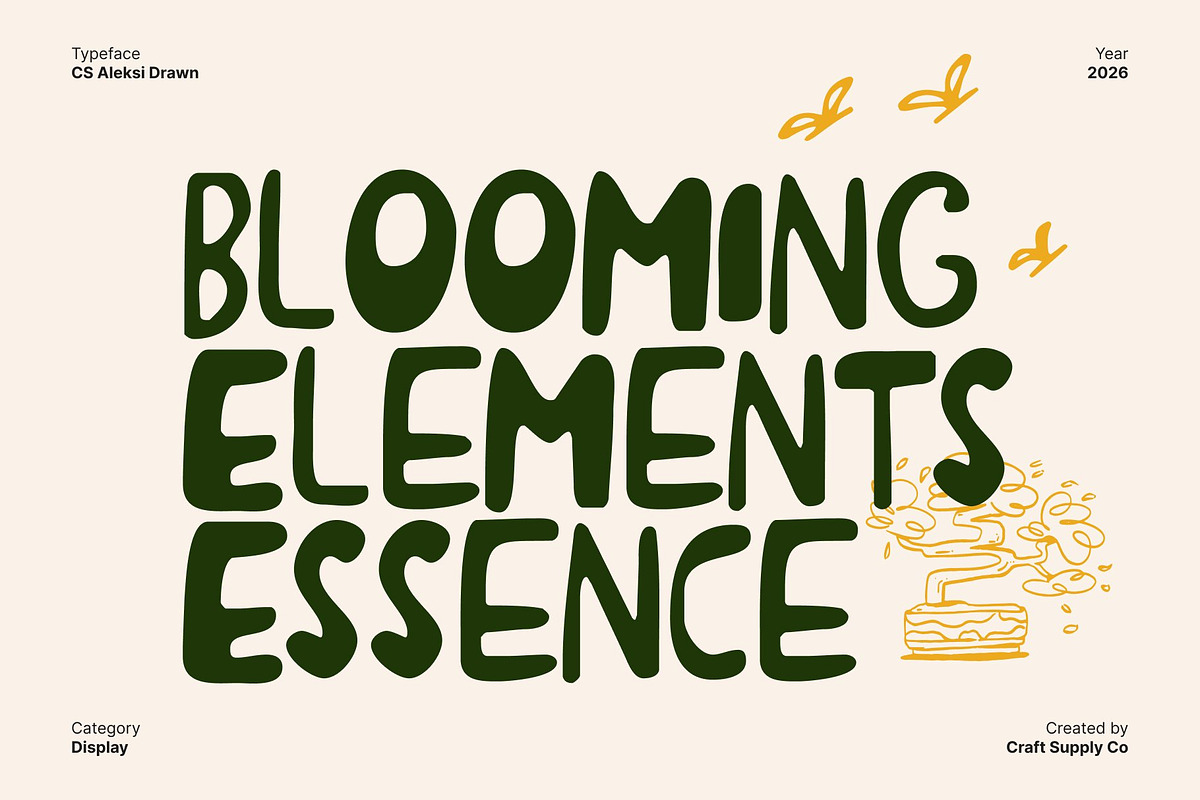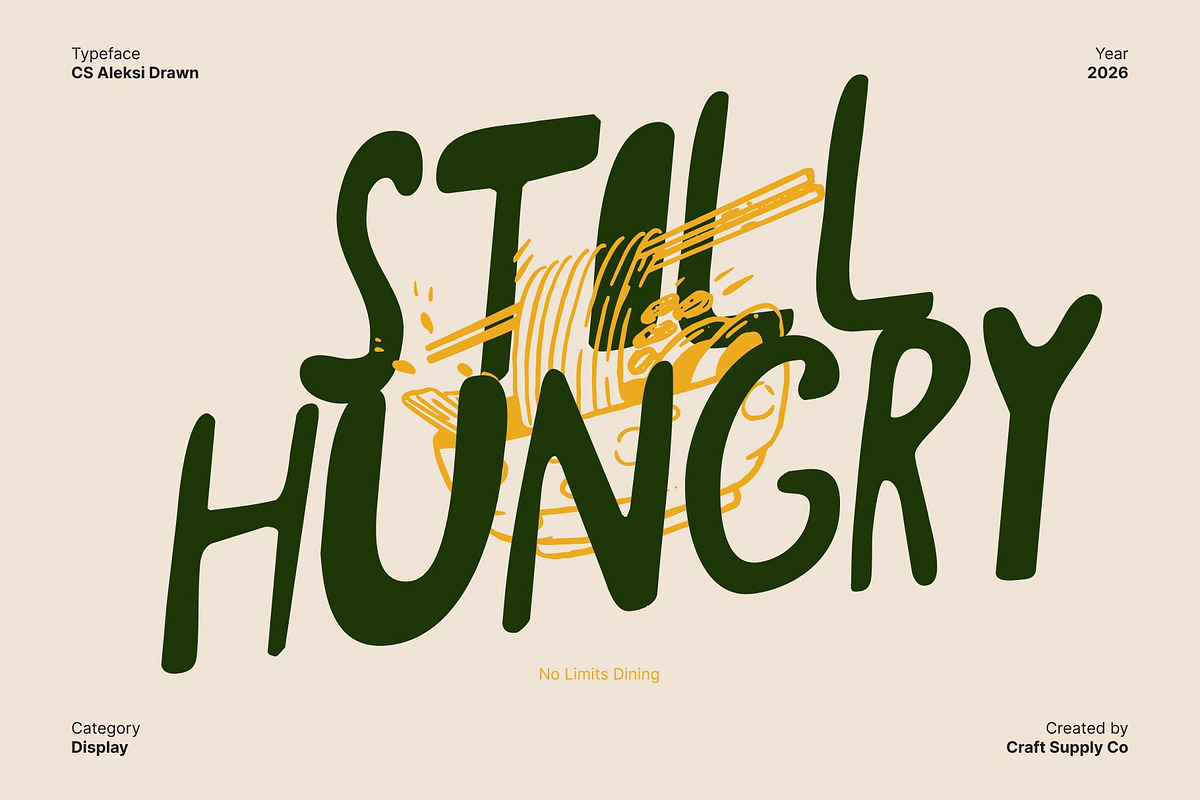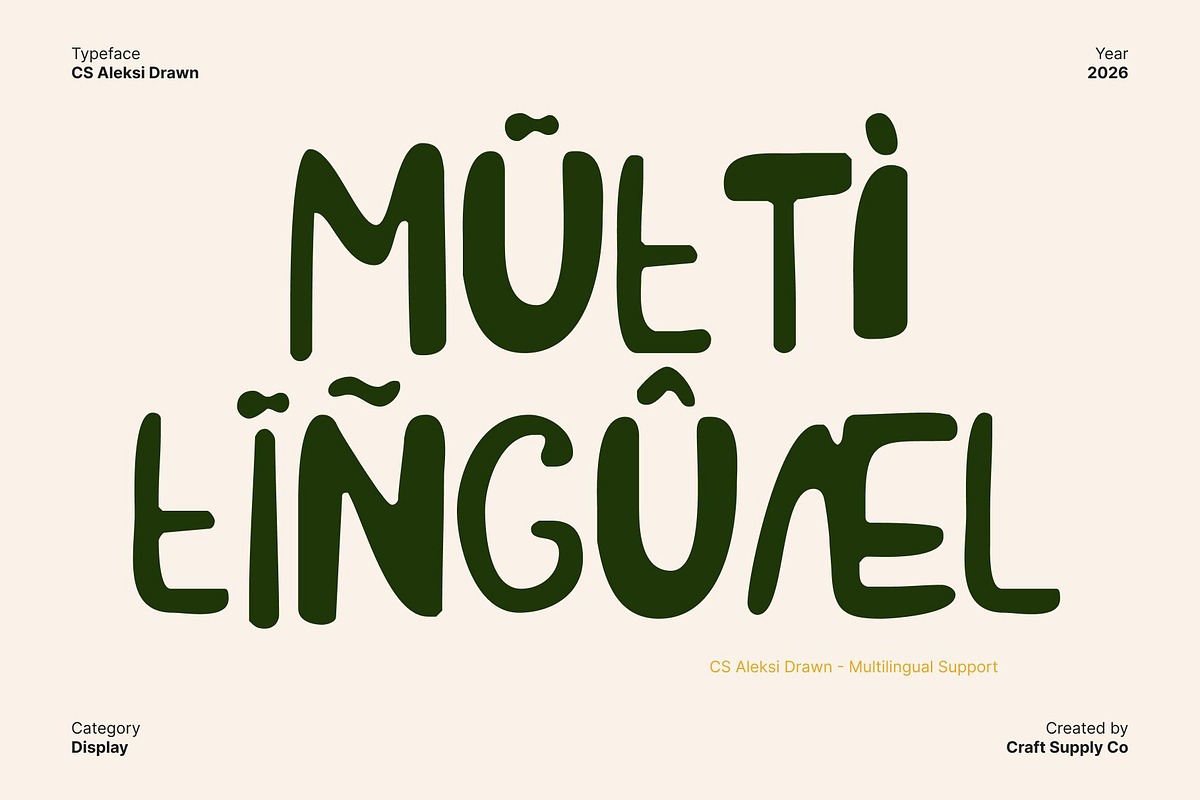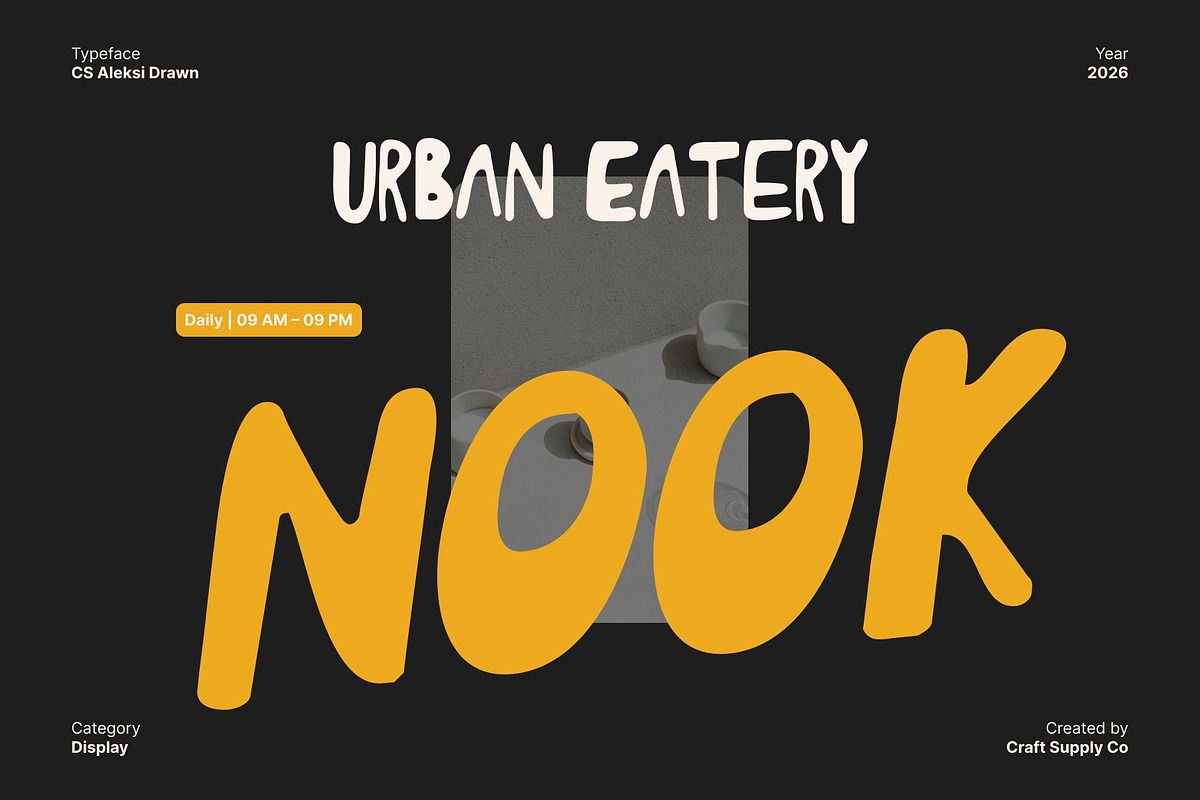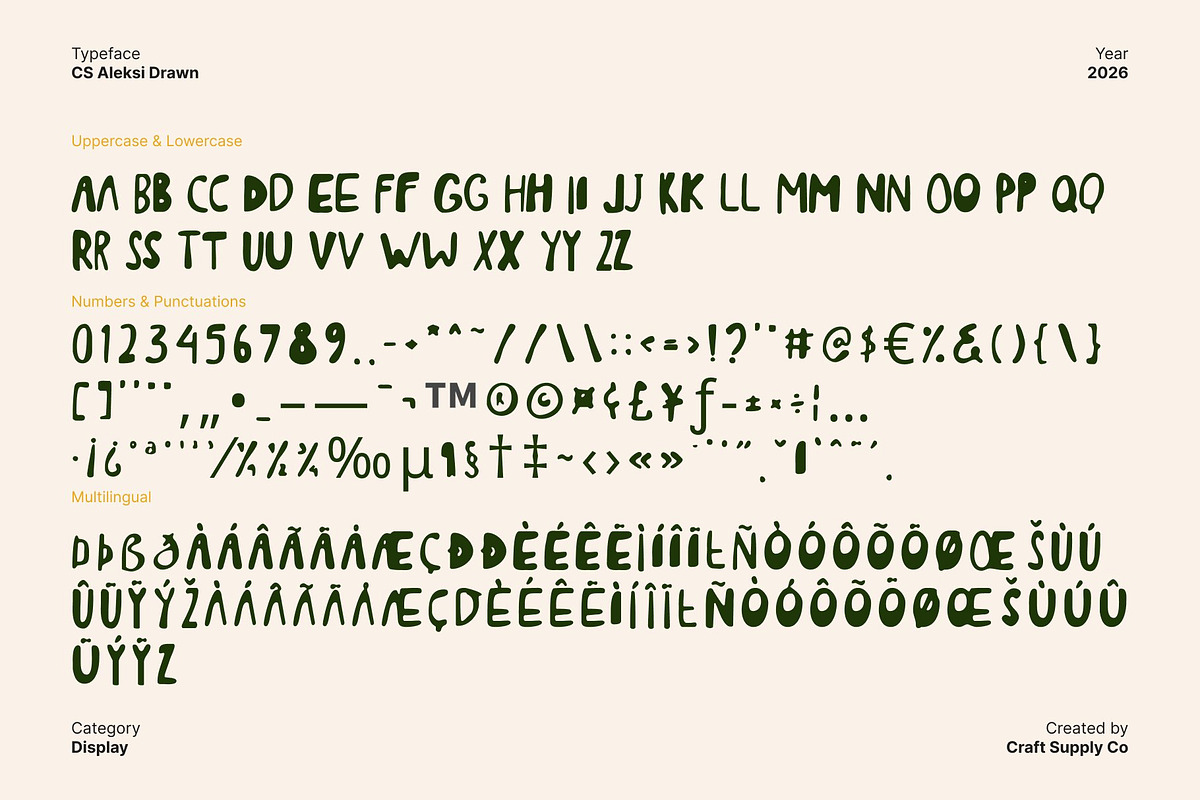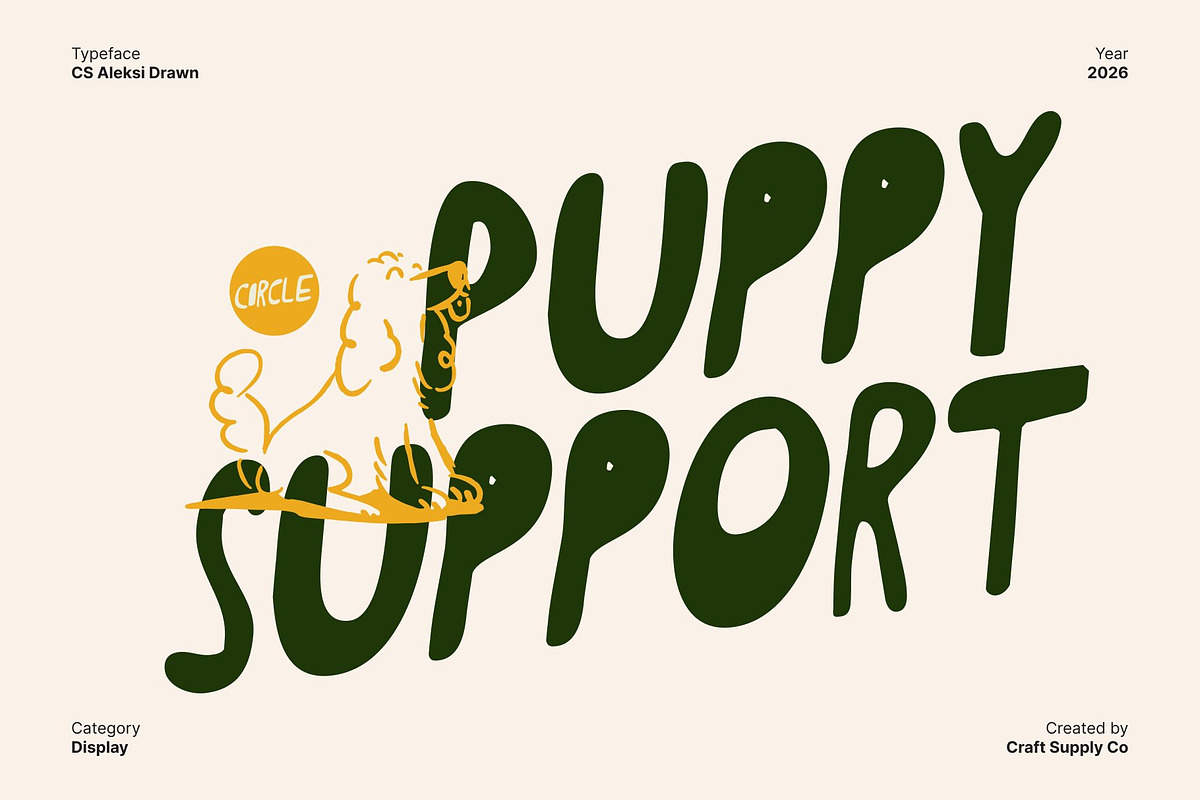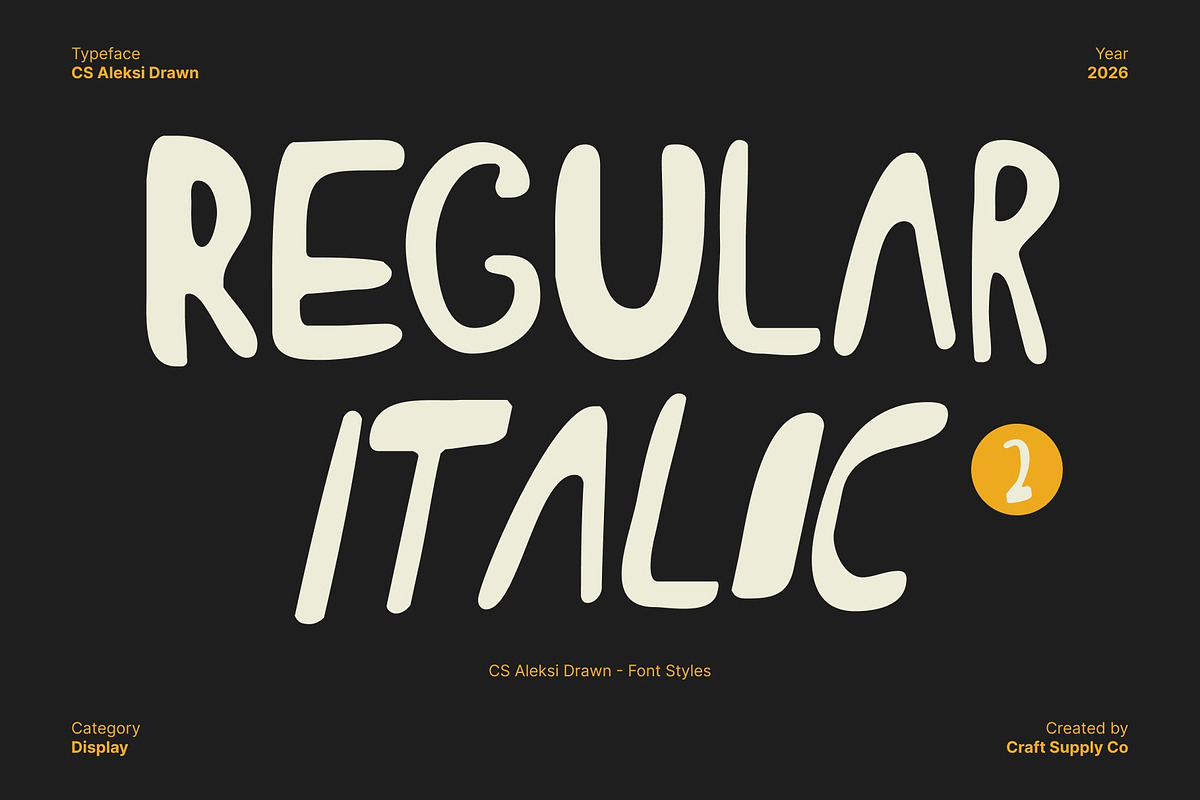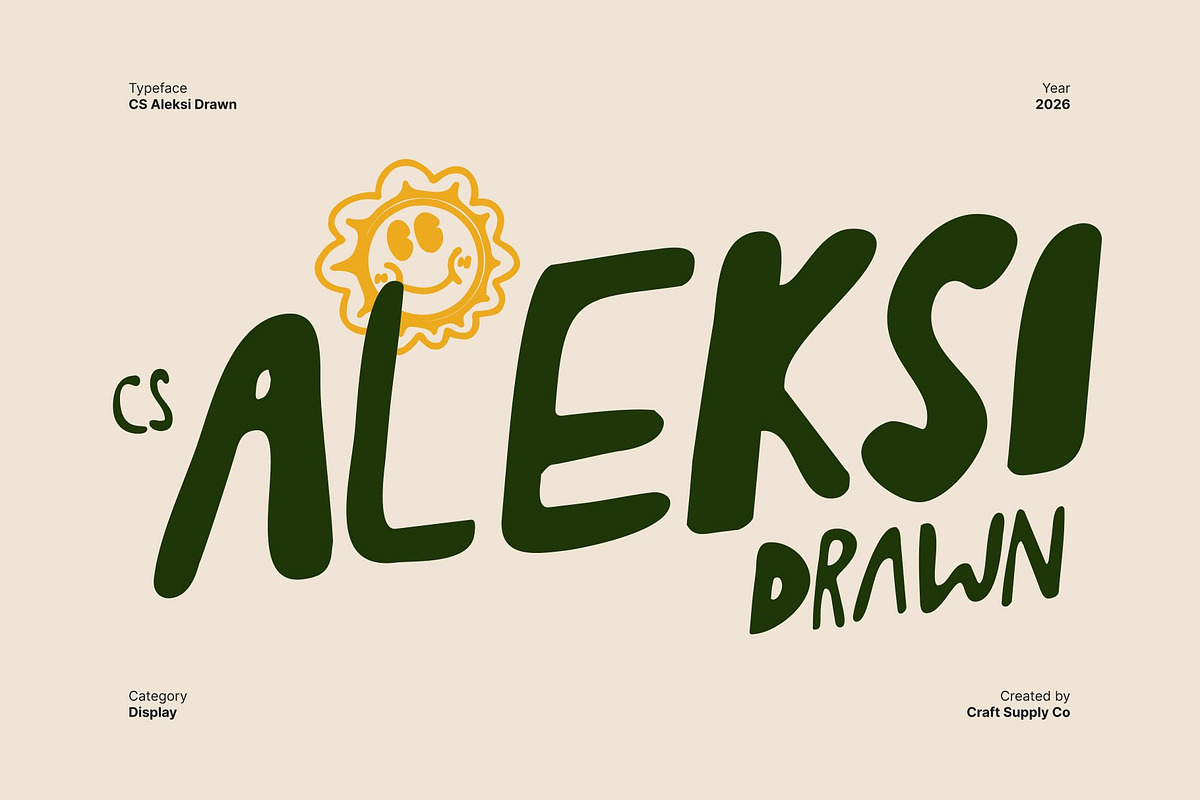
CS Aleksi Drawn
CS Aleksi Drawn – The Charm of Imperfection in Every Stroke
Playful Handwritten Style with a Quirky Edge This is a carefree handwritten display font that celebrates imperfection as its greatest strength. Featuring a loose, sketch-like construction and a natural drawn texture, each letter feels spontaneous and full of life. Its imperfect strokes create an authentic, human presence that brings warmth, personality, and expressive energy to any design.
Abstract Doodle Forms with Artistic Texture Inspired by doodles and freehand sketches, this font blends abstract shapes with irregular lines and uneven rhythm. The hand-drawn texture enhances its raw, artistic quality, making every character feel unique and intentionally imperfect. This unconventional approach results in a font that feels creative, personal, and visually engaging.
Youthful Energy for Contemporary Visuals With its relaxed attitude and playful spirit, this font fits perfectly into modern design trends. It connects effortlessly with youthful audiences, making it ideal for lifestyle graphics, creative branding, posters, and expressive social media content that values originality and authenticity.
Perfect for Friendly and Expressive Branding From packaging and campaign visuals to bold creative statements, this font adds charm, spontaneity, and character. Its “ugly-but-beautiful” personality makes it a strong choice for brands that embrace individuality, creativity, and a handcrafted aesthetic that feels honest, memorable, and approachable.